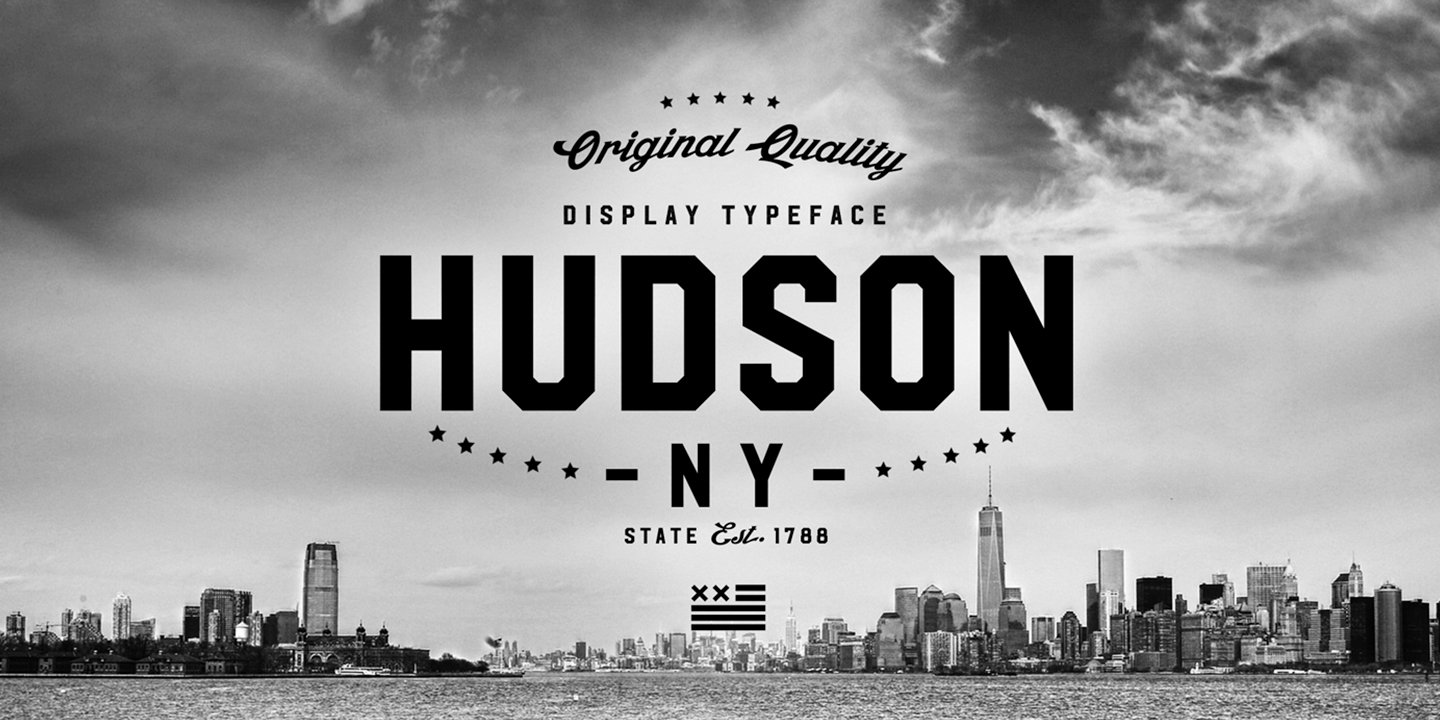
The Hudson NY Font is perfect for urban contemporary design projects including New York-inspired branding, metropolitan lifestyle magazines, urban development presentations, city tourism marketing, modern architectural signage, cosmopolitan restaurant identities, downtown business communications, and sophisticated urban culture materials. This metropolitan typeface brings authentic New York character and urban sophistication to any design project celebrating city life and contemporary metropolitan culture with authentic urban appeal.
What makes Hudson NY Font so exciting is its captivating embodiment of New York City energy with letterforms that capture the essence of metropolitan dynamism and urban sophistication. The letters feature cosmopolitan characteristics with city-inspired proportions that create an immediate sense of urban authenticity and metropolitan style. This distinctive metropolitan character makes it perfect for brands and projects that want to communicate city sophistication, urban energy, and the compelling appeal of authentic New York lifestyle and contemporary metropolitan culture.
The Hudson NY Font family typically includes multiple weights from light to bold, complete with urban-inspired variations and comprehensive character sets. Many versions feature city symbols, metropolitan glyphs, and urban design elements that enhance its authenticity for city-focused and cosmopolitan applications.
Whether you're designing for urban businesses, metropolitan publications, or city-focused brands, Hudson NY Font Free Download offers the perfect solution for projects that need to convey authentic urban sophistication and New York energy. This font transforms standard city communications into metropolitan designs that immediately communicate urban excellence, cosmopolitan style, and the dynamic appeal of authentic New York character to audiences seeking genuine metropolitan experiences and sophisticated city culture.